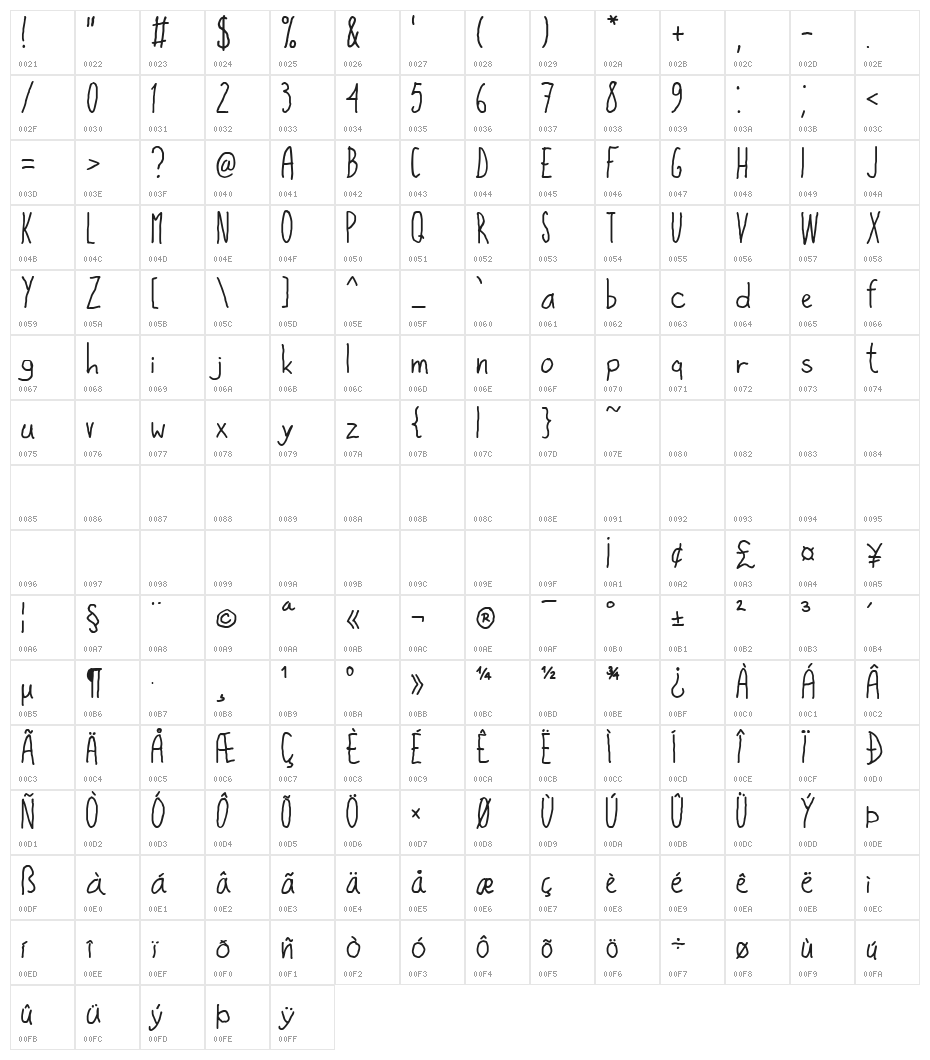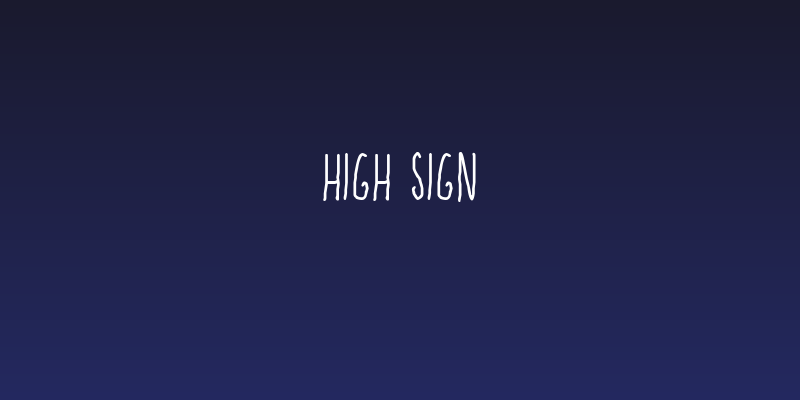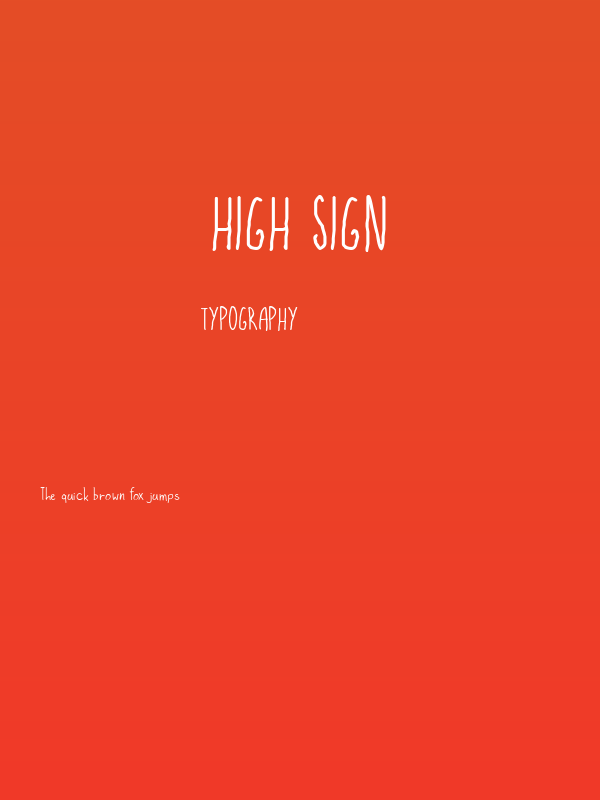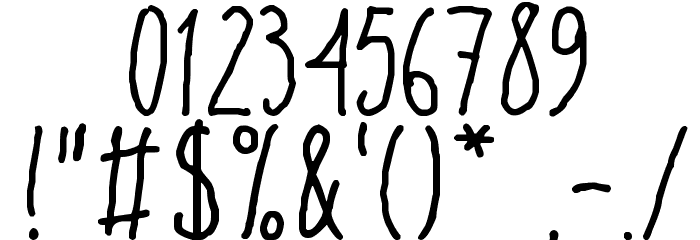
High Sign Font
High Sign Description
This font features a playful and casual handwritten style, characterized by its uneven strokes and slightly irregular letterforms. The uppercase letters are tall and narrow, giving a sense of height and energy, while the lowercase letters maintain a consistent flow with a touch of whimsy. Numbers and special characters follow the same informal aesthetic, making the font feel cohesive and lively. The overall appearance is approachable and friendly, suitable for projects that aim to convey a personal touch or a creative flair. The strokes are consistent in thickness, providing a medium contrast that enhances readability without sacrificing the font's unique character.
Font by McKack
| Use Case | Logos, Posters, Informal Invitations |
| Proposed Projects | Ideal for greeting cards, children's books, casual branding, and creative posters. |